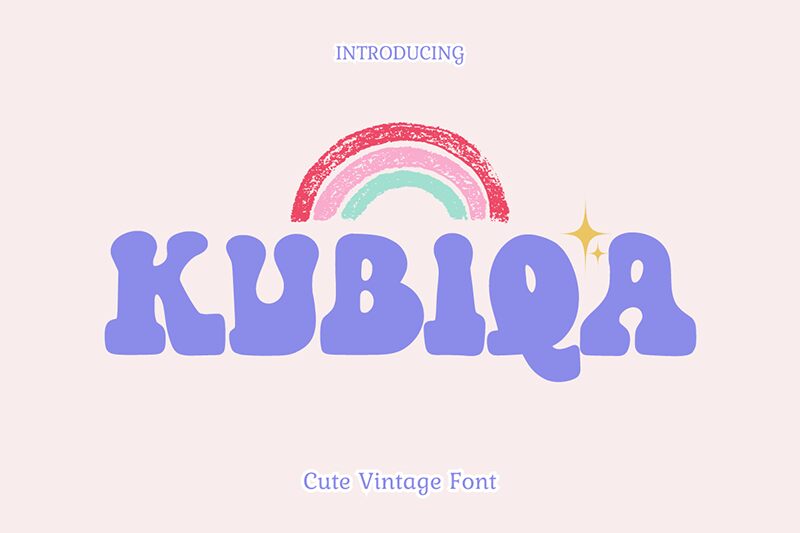
Kubiqa font by Tri Sakti Oktaviano is a bold, playful and retro-inspired style display typeface. The font features rounded and organic shapes that render a friendly yet fancy appearance to it. All letters appear to be closed-formed which adds to a solid look of each text created with the free font. Kubiqa is groovy just like 70s music so your designs will carry the same nostalgic vibes when made with this particular display type.
One of the best sides of this product is its amazing versatility in terms of application. Most uses can be for printing purposes such as t-shirts, book covers, tote bags, labels, package designs and skateboard decks. Kubiqa has amazing online uses too especially in banners for social media posts, websites or online shops. Finally, the font goes exceptionally well side-by-side illustrated drawings whether digital or traditional on paper!